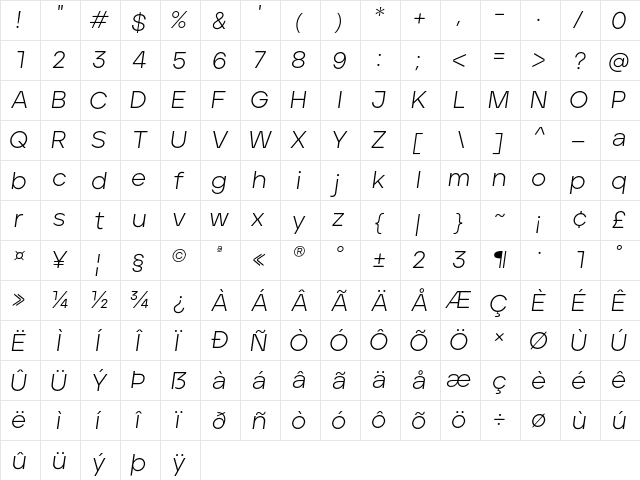
Aventa Personal Use Only Light Itallic
| Foundry | Tom Anders Watkins & Ellen Luff |
| Designer | Tom Anders Watkins & Ellen Luff |
Design Context for Aventa Personal Use Only Typeface
Aventa Personal Use Only offers clean, dependable letterforms without strong stylistic allegiance, making it a practical choice for designers who need flexibility. Its slender proportions lend an understated elegance to any composition.